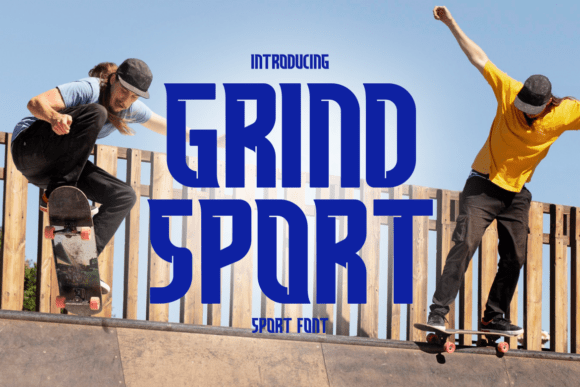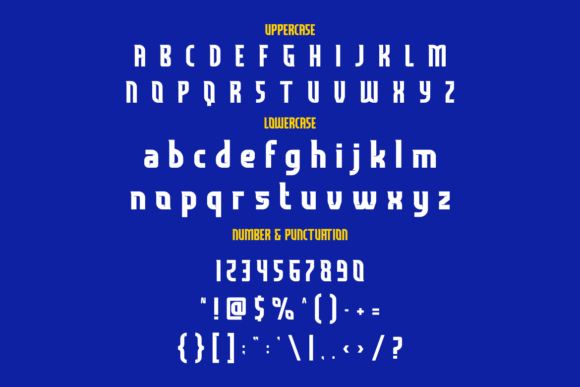
The Birth of a New Era in Typography
You’ve been there – the rush of adrenaline as you land a trick, the thrill of competition, the rush of creative energy as you bring a new design to life. For designers, typography is an integral part of this experience, setting the tone and capturing the essence of the moment. That’s where the Grind Sport Font comes in – a dynamic display font engineered to capture the raw energy of action sports and street culture.
With its bold, condensed letterforms and sharp verticals, the Grind Sport Font is more than just a typeface – it’s a statement. Its minimal curves and urban edge make it perfect for projects where action and presence matter, from extreme sports gear to esports teams, and youth-driven fashion labels. Whether you’re designing a logo, creating event posters, or crafting UI for a game, the Grind Sport Font has got your back.
Grind Sport Font Key Features
- Unique Characteristics: The font features a bold, athletic feel with rounded edges and geometric shapes, making it ideal for sports-related designs.
Grind Sport Font Review
First off, let me say that I’m a fan of the Grind Sport Font’s overall aesthetic ✨. It’s got a bold, edgy feel that’s perfect for sports-themed designs or anything that needs a high-energy vibe. The font’s custom illustrations and dynamic letterforms really make it stand out.
The font’s flexibility is another major plus ✨. It’s available in a range of weights, from light to bold, which gives designers a lot of options for customizing their designs. Plus, the font’s open-source nature means it’s free to use, which is a definite bonus.
Overall, I think the Grind Sport Font is a solid choice for designers who need a bold, eye-catching font for sports or high-energy designs. Just be aware of its limitations and make sure it’s a good fit for your specific project.
Grind Sport Font is ideal for creating bold and eye-catching sports-related designs. Use it for:
- Sports team logos and branding
- Event posters and flyers
- Sports-themed social media graphics
Remember to use Grind Sport Font in conjunction with other design elements to create a cohesive and engaging visual identity.